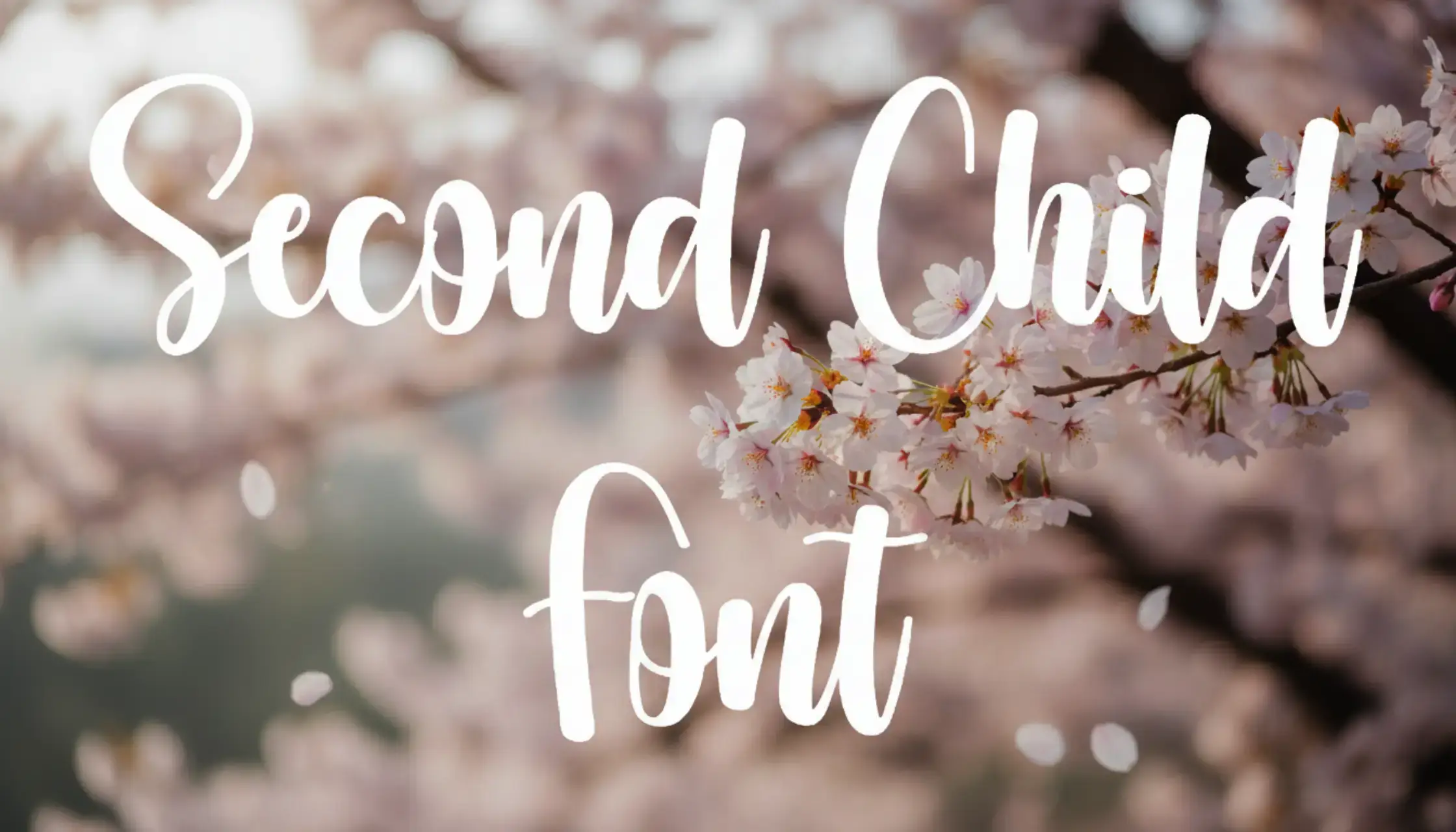
Second Child Font
Second Child
Second Child is a handwritten font. The letters have the small wobbles and personality of real handwriting, so your text feels warm instead of printed. You can download it for free and test it with your own words in the preview above.
Second Child covers the full alphabet in upper and lowercase, plus all ten numbers, so you can set names, dates and prices without switching fonts. Common punctuation such as &, !, ? and @ is included as well. It also has the accented letters you need for Spanish, French, German, Portuguese and Italian.
Second Child is a natural fit for greeting cards, journal pages and friendly social posts. Set it a bit larger than you would a normal text font. Handwriting styles lose their charm once they get too small to read comfortably.
Yes. Second Child includes the accented letters needed for Spanish, French, German, Portuguese and Italian, so it works for more than just English.